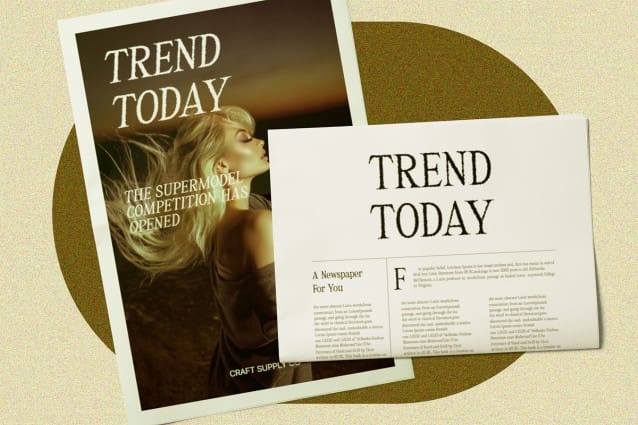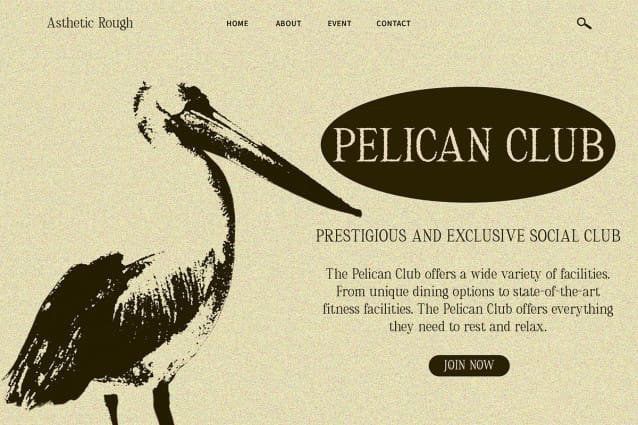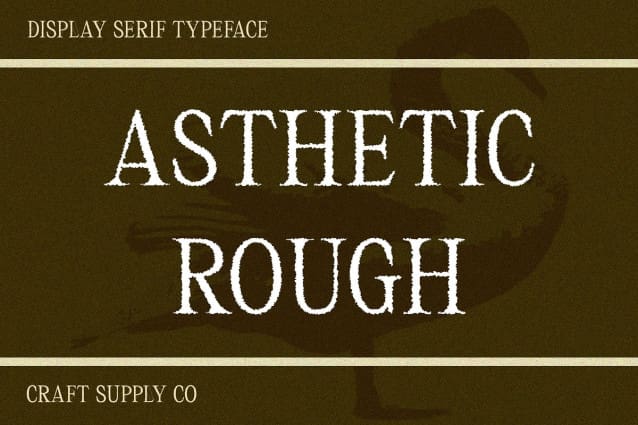
Asthetic Rough Font
Asthetic Rough Font: Evoking Vintage Charm. Classic Serif Display Asthetic Rough boasts a classic serif display style, capturing the essence of vintage typography. Its timeless design exudes sophistication and nostalgia.
Rough Effect Enhanced with a rough effect, this font gains a weathered and textured appearance reminiscent of aged print materials. Each character carries a sense of history and character.
Vintage Appeal The combination of classic serif styling and rough effect gives This font a distinct vintage appeal. It evokes memories of old signage and letterpress printing, adding a nostalgic touch to any project.
Ideal for Vintage Designs With its classic serif form and vintage-inspired rough effect, This font is perfect for vintage-themed designs. From posters and packaging to branding and invitations, it infuses projects with retro charm and character.
Timeless Elegance with Vintage Flair This font combines classic serif styling with a rough texture effect, resulting in a font that exudes vintage charm. Its timeless appeal and weathered appearance make it an ideal choice for projects seeking to evoke nostalgia and sophistication.